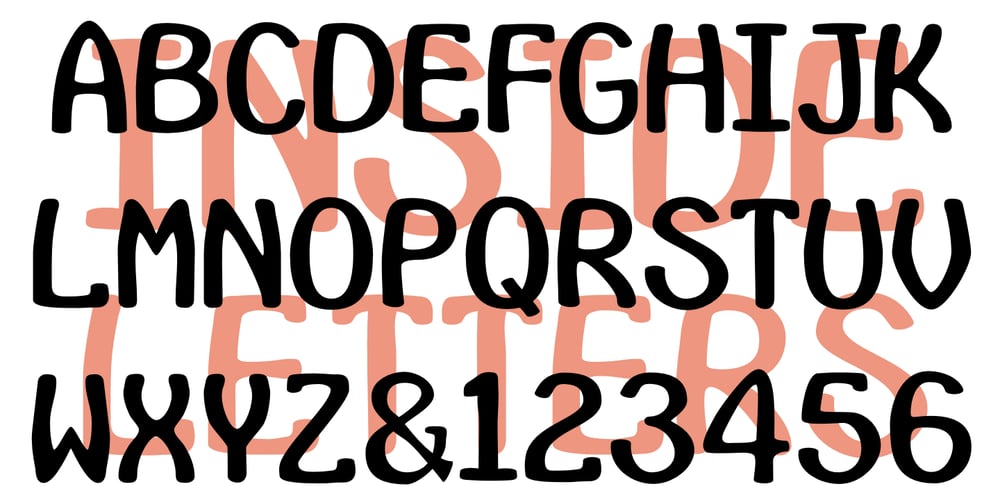
InsideLetters Font Family was designed by Robert Schenk and published by Ingrimayne Type. InsideLetters contains 6 styles and family package options. These letters were developed to decorate the font Bowling and then were also used in the fonts Coffeemug and Teapot. For many years the InsideLetters family had only one family member, InsideLetters. An upgrade in early 2019 added two more family members, InsideLettersHalloween and InsideLettersXmas. The first puts the letters from InsideLetters on pumpkins and the second puts them on Christmas tree ornaments. In 2022 and oblique stye was added to the family. Inside letters is caps-only. It is a casual and playful handwritten sans-serif font.